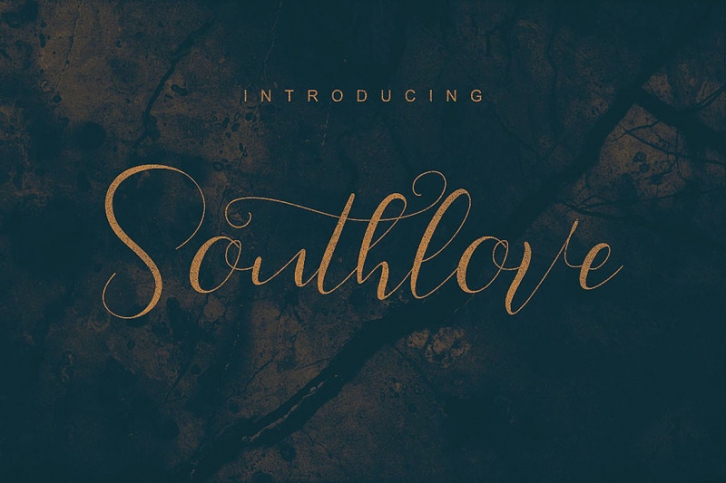
Southlove Script Font Download
Dancing baseline and thin handwritten or calligraphy style script font for your new projects. With multi language support and lot of stylistic alternates & swashes.